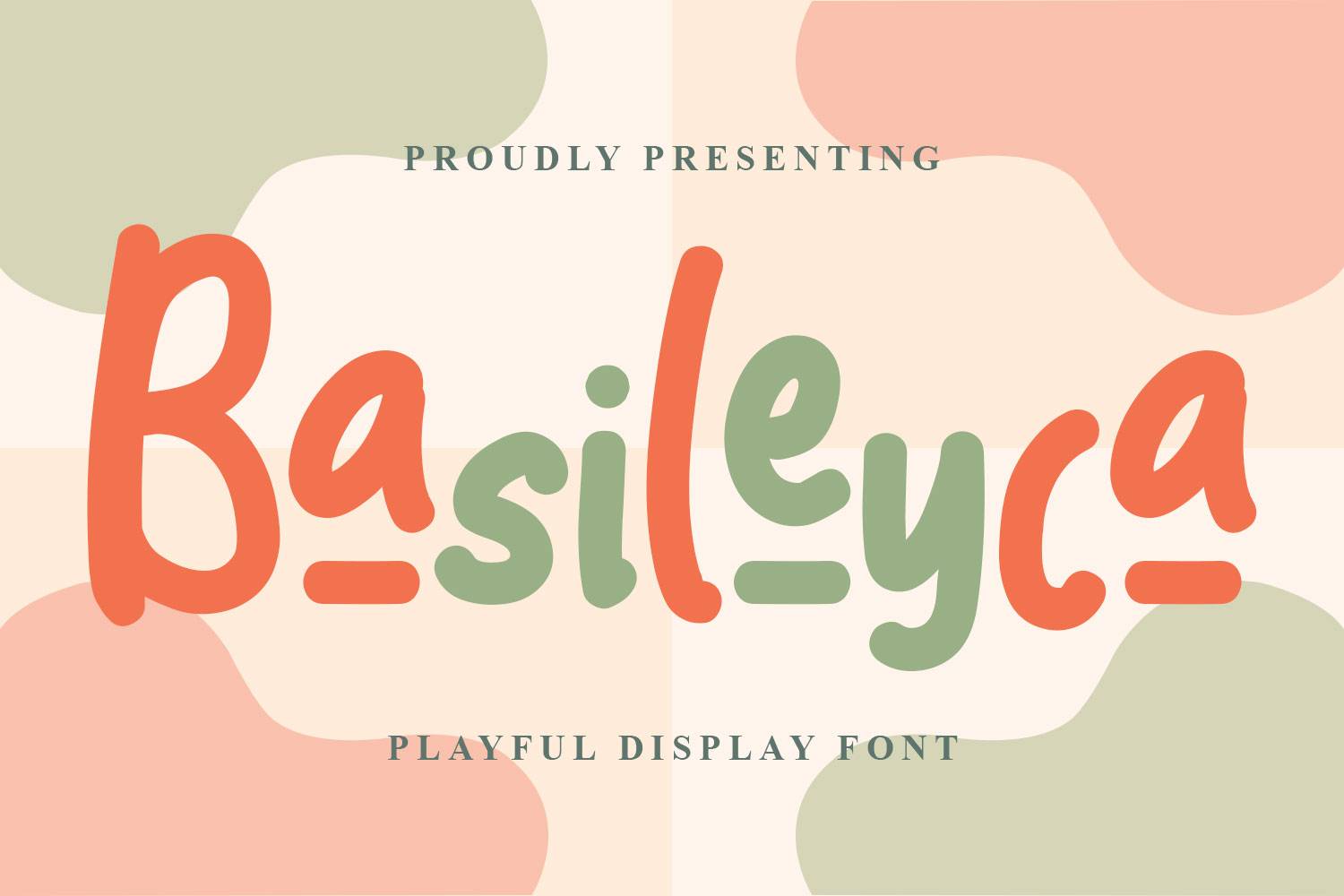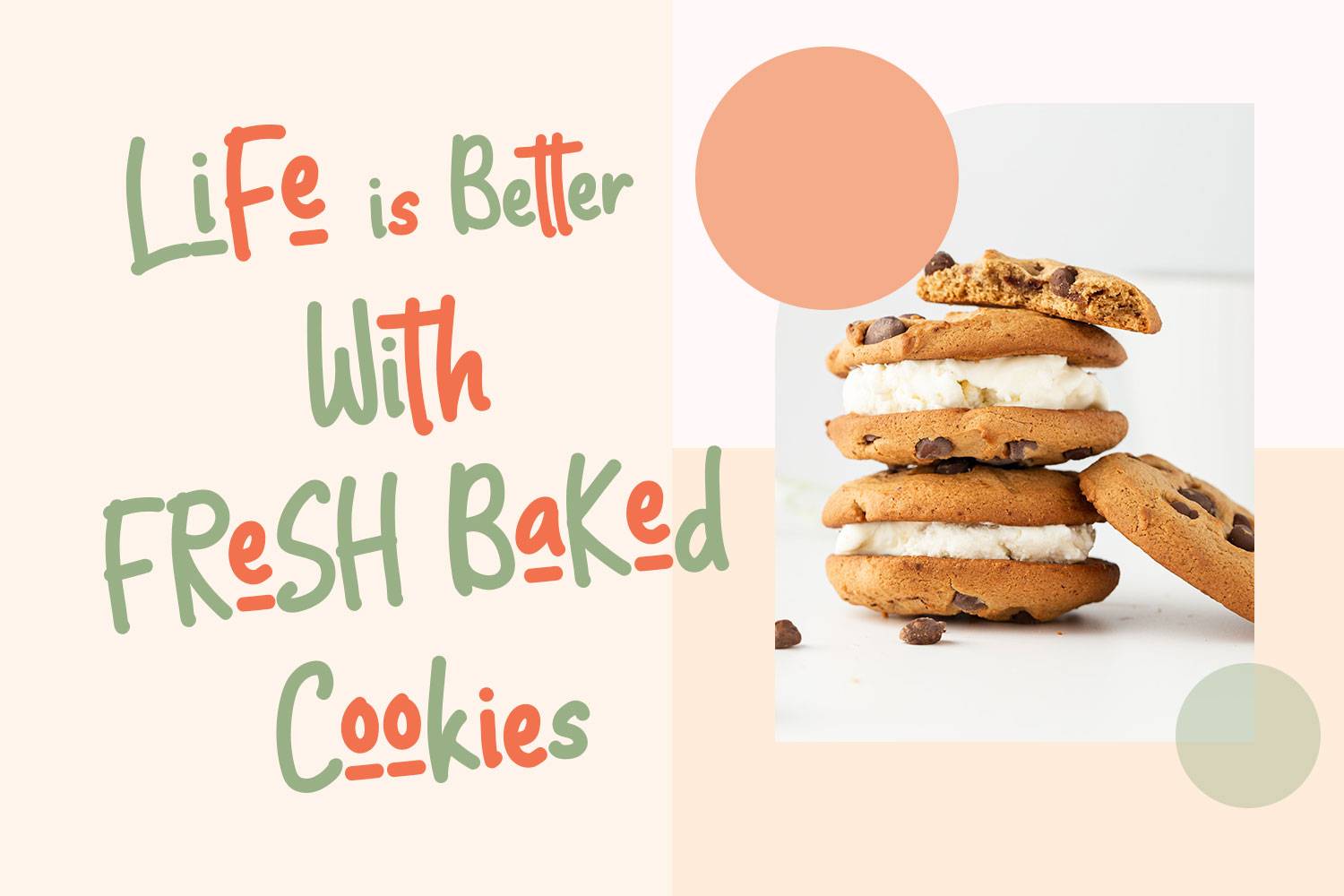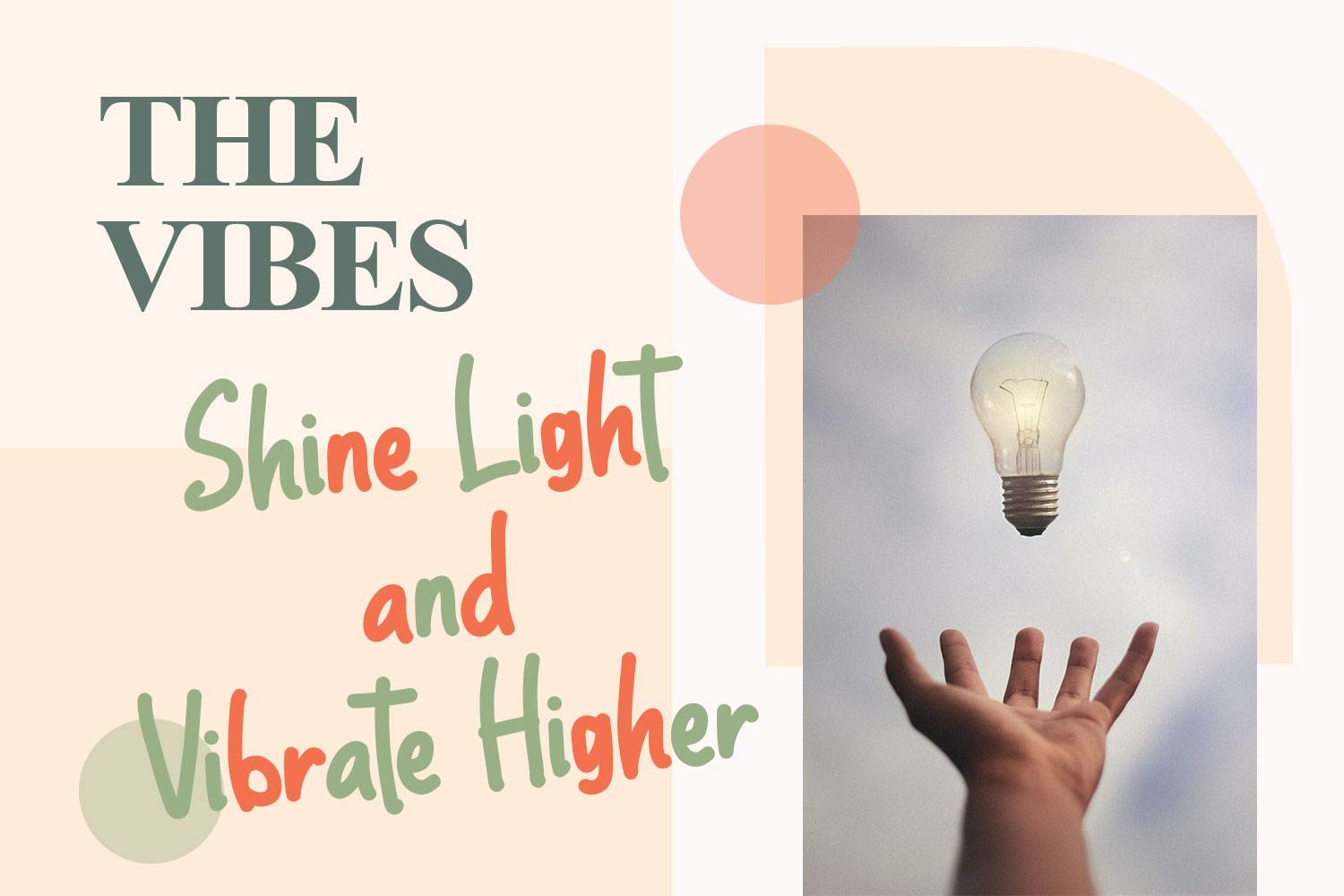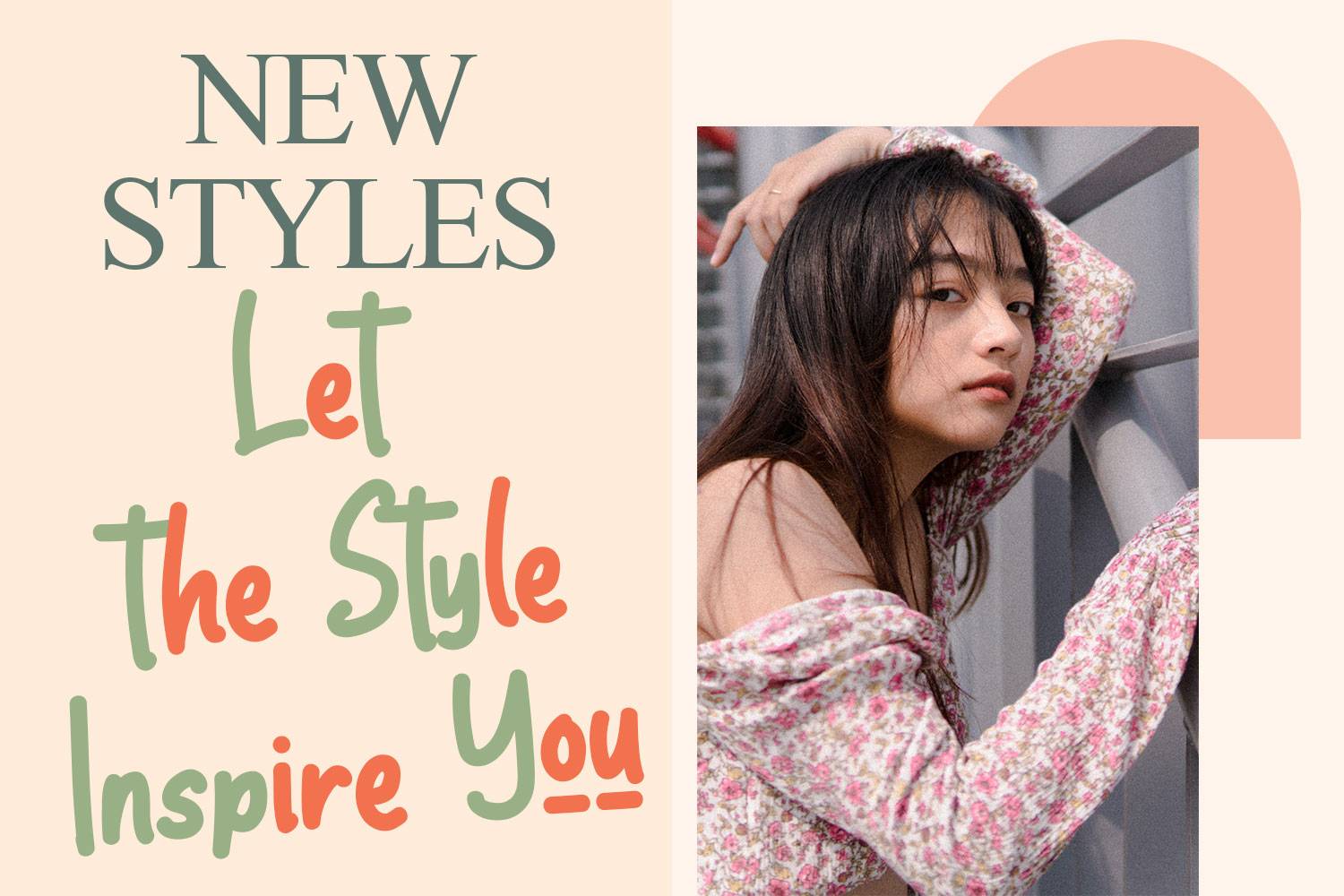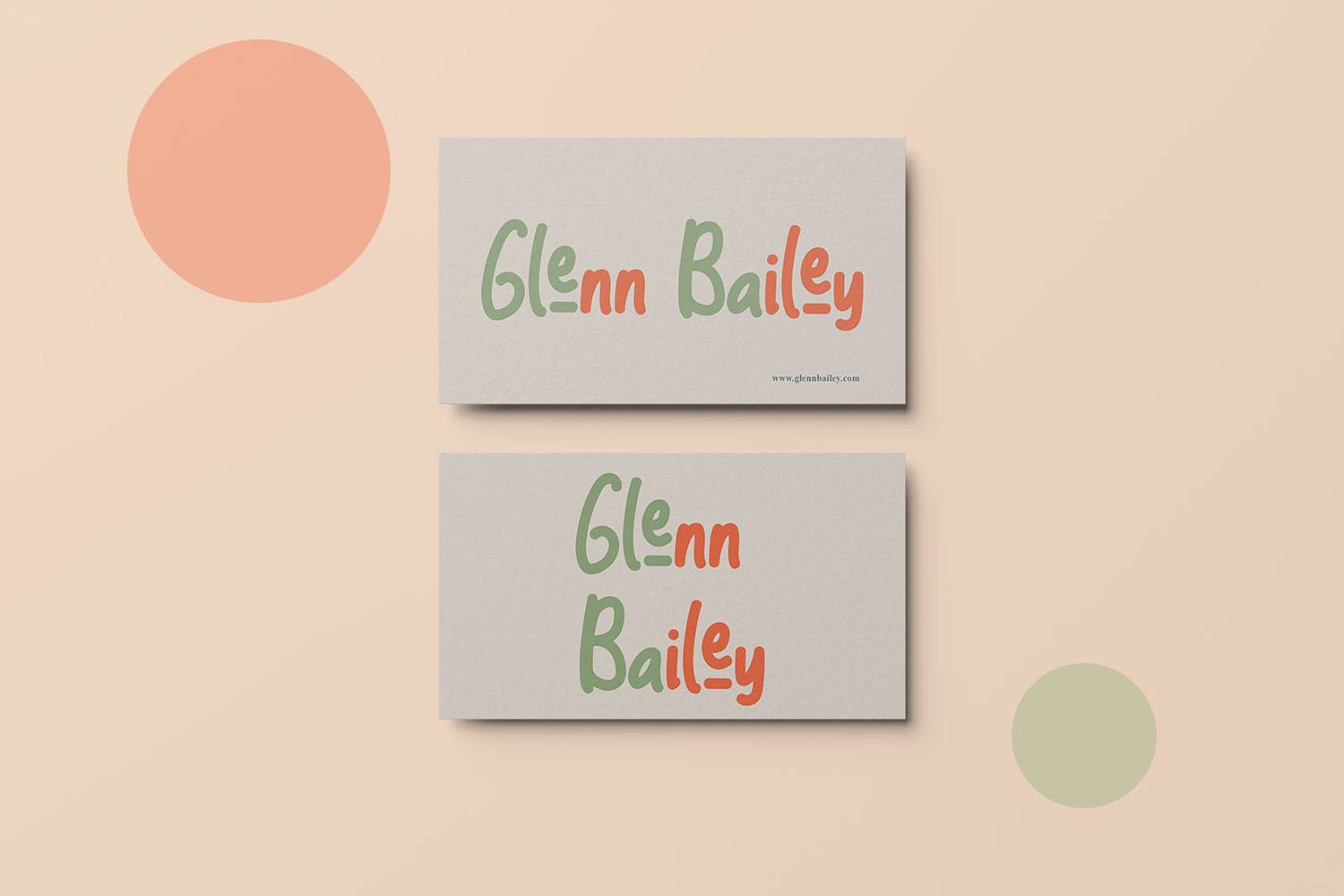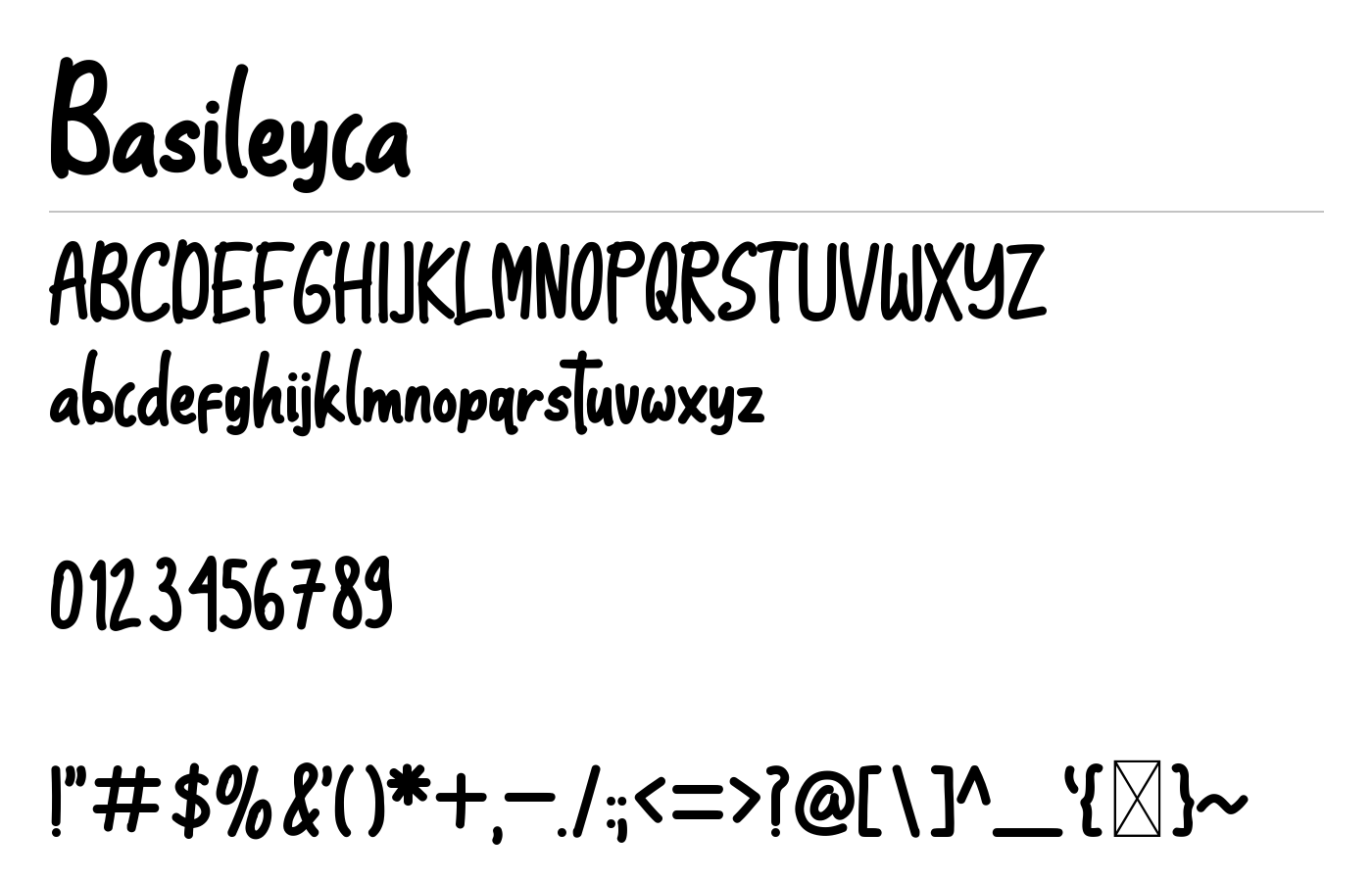
Basileyca is a playful and casual handwritten sans serif font with a friendly, informal vibe. Its upright letterforms feature rounded edges and moderate contrast, lending warmth and approachability, making it ideal for creative projects, children’s materials, and personal branding. With clear readability and lively personality, Basileyca works well in headlines, logos, and packaging that seek a cheerful, inviting tone.
Basileyca Font
About Basileyca Font